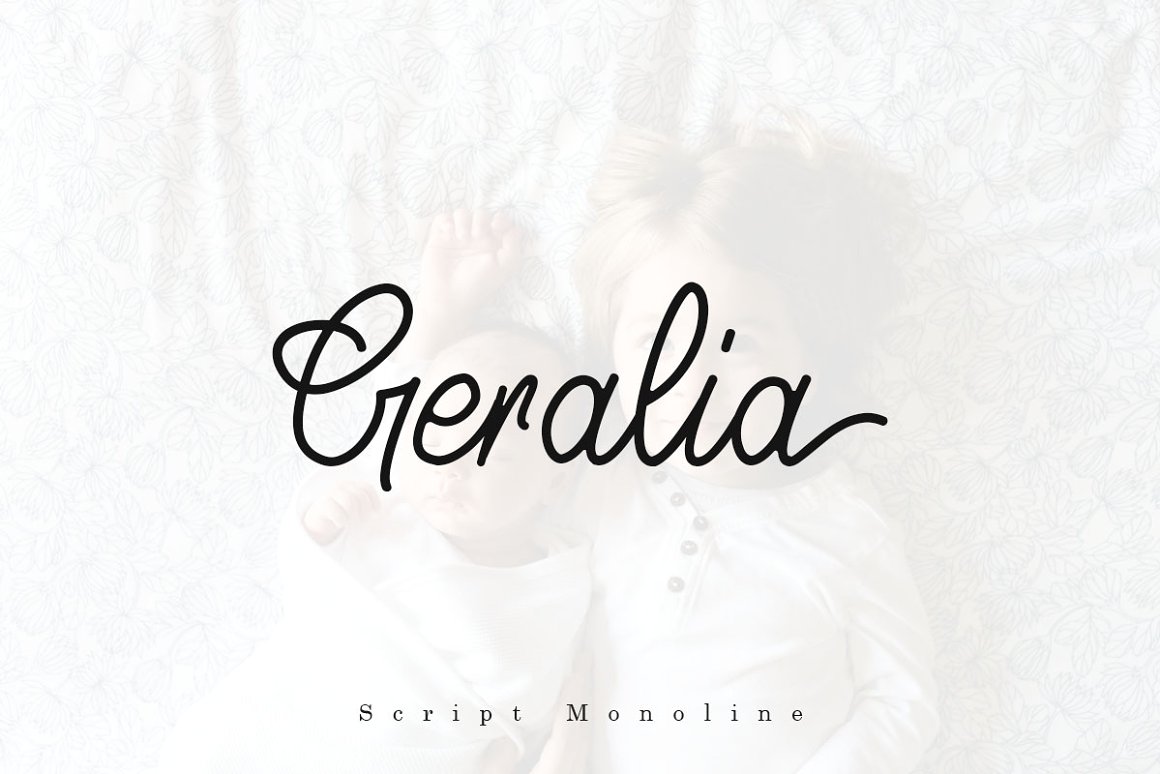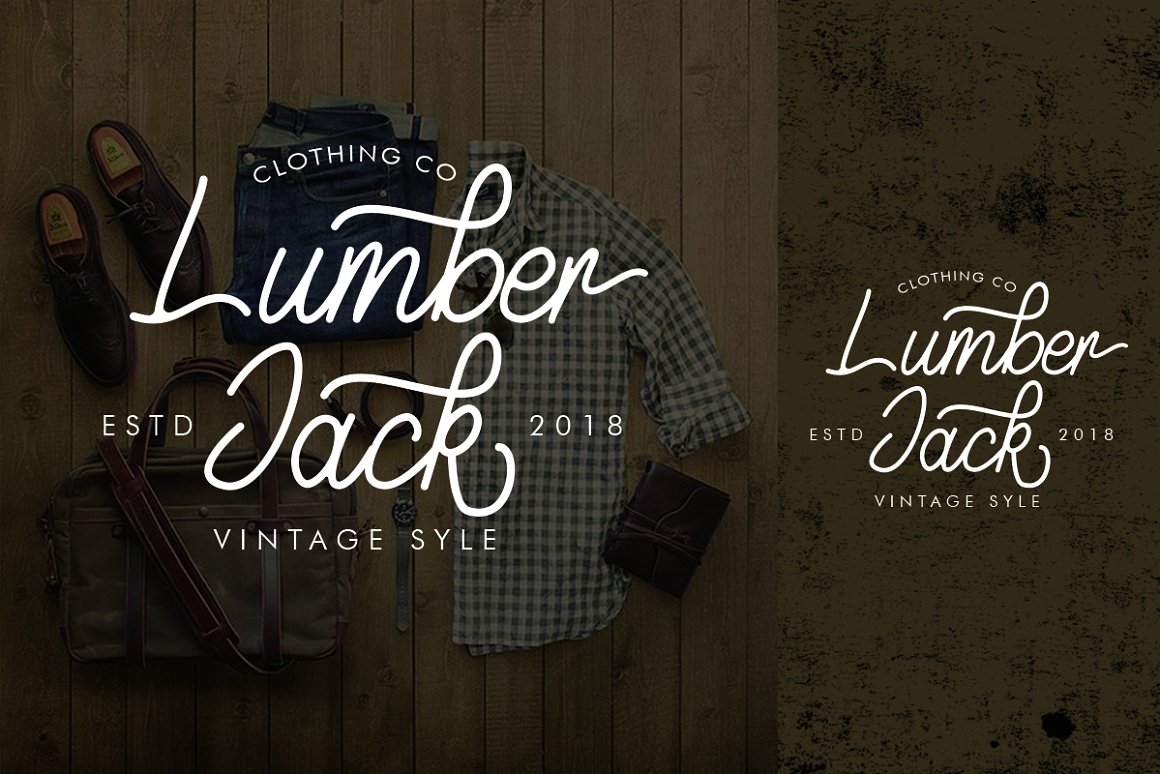
Geralia Typeface
Introducing, Geralia Typeface. Geralia is Script Typeface with Monoline Style wich is elegant syle and great for various design like Logo, Product, Stationary, clothing brand and much more. Geralia have more Glyph for explore your design